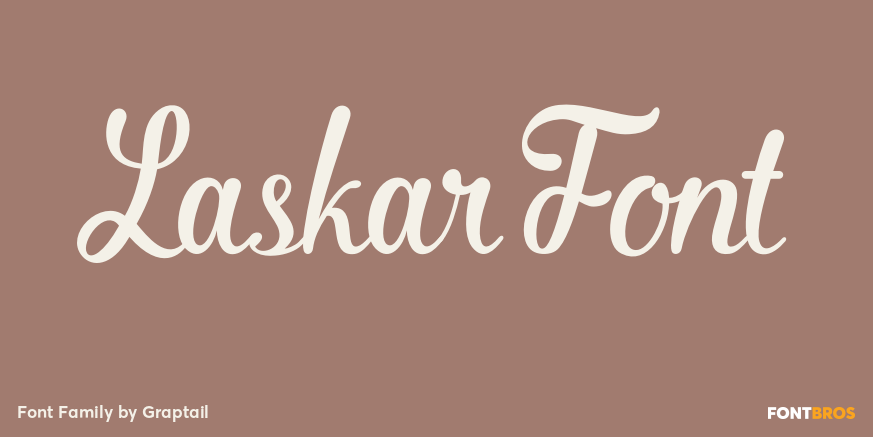
About Laskar Font
Laskar is a bold brush style script and an all caps font. Laskar is equipped with plenty of OpenType features: To activate the alternates click on Swash, Ligature, Contextual Alternates and Stylistic Alternates in any OpenType savvy program or manually…